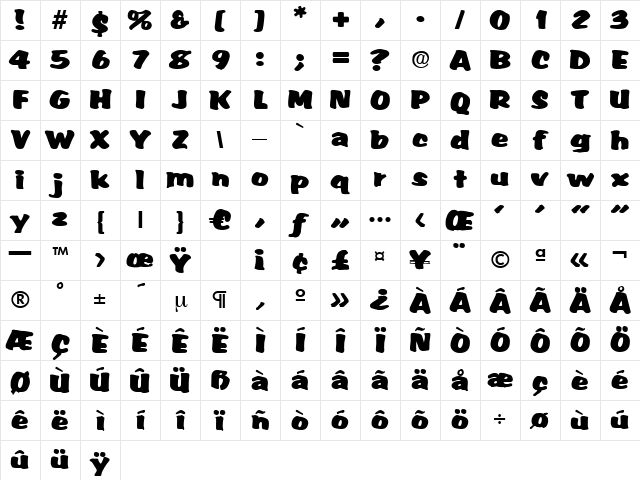
Accent Regular Free Font
Accent Regular
Complete Accent Regular glyph index. Displaying only characters natively supported by Accent Regular font.
Design Context for Accent
Accent is a composed and adaptable typeface that performs quietly and consistently across a wide range of design contexts.